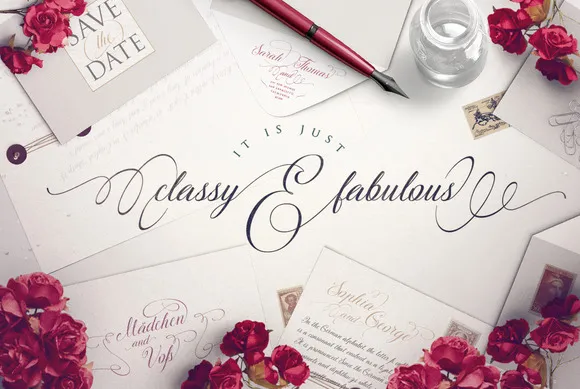
Secret Font is a delightful one of a kind calligraphy style text style that accompanies heaps of glyphs and elements. The mystery is so gorgeous and contains such countless highlights that it has been authored as the option to the delightful Samantha script and Magnolia Sky text style.
Some will concur with this evaluation, others could not, yet we can all concur that Secret Font is a staggering text style with a much seriously shocking plan. It’s special and really stand-out.
Text style Elements
This extravagant text style accompanies 689 glyphs and contains in excess of 50 end-swashes. Each end swash has been painstakingly created by hand to make an impeccably adjusted textual style.
A portion of the special elements of The Mysterious text style are:
- Logical Substitutes
- Optional Ligatures
- Expressive Substitutes
- Swashes and Swooshes
- PUA Encoding (Confidential Use Regions)